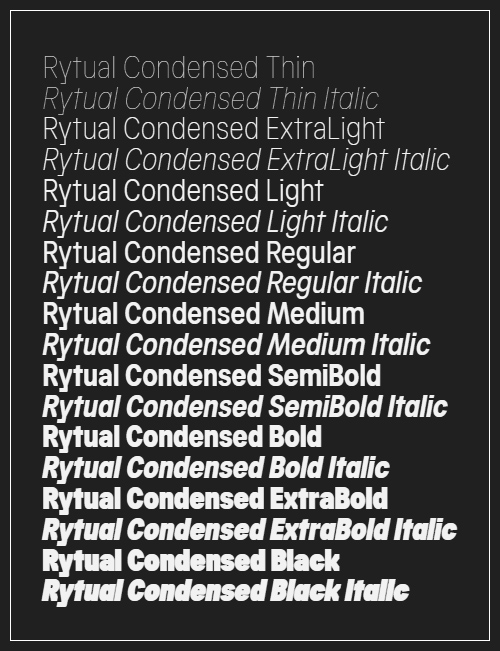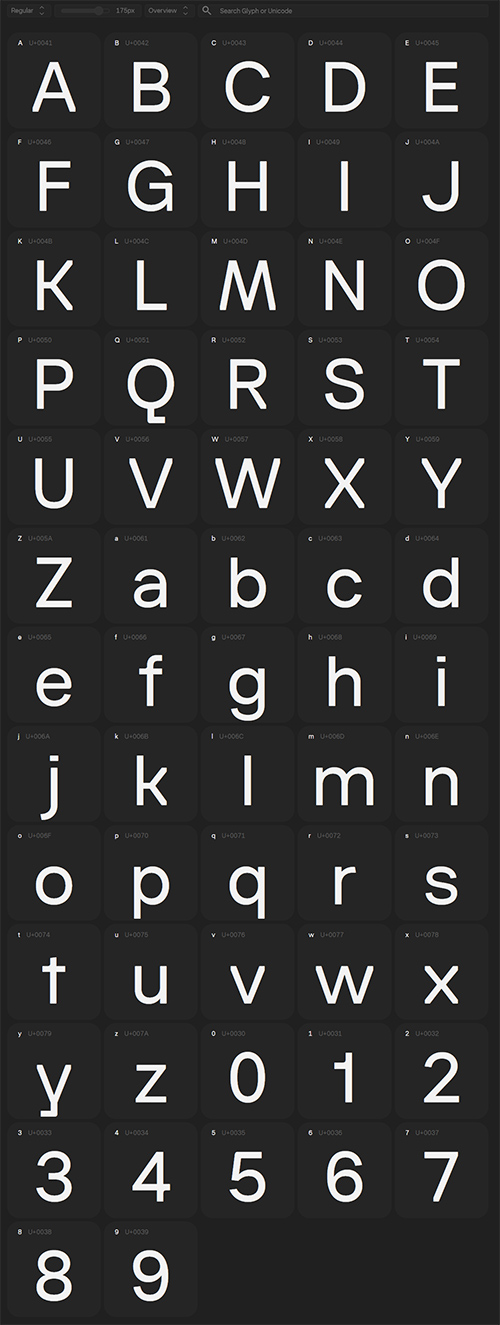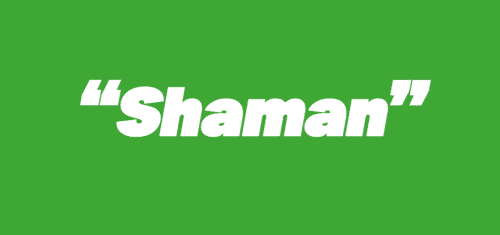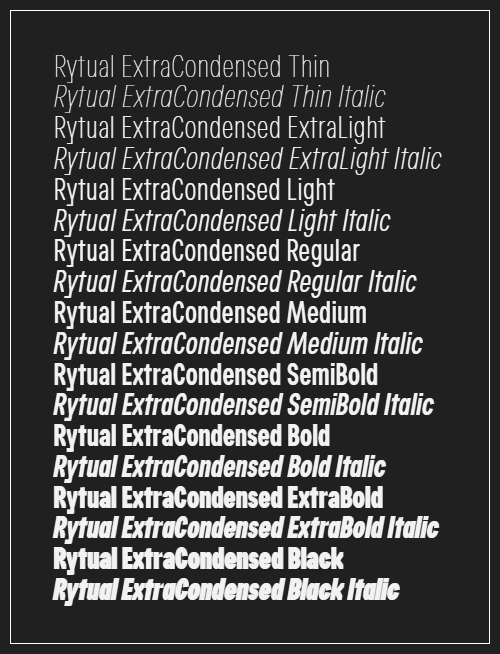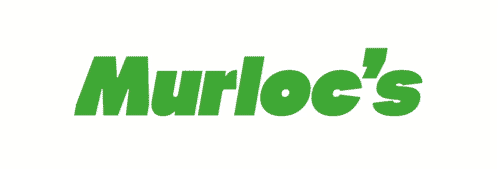
Rytual by Superior Type NEW, April 2026!
- The name came from a running. Same time, same route, whatever the weather, coffee after. A Rytual. The typeface follows the same logic: no single dramatic move, just one decision repeated consistently until the character accumulates. What started as a custom job for a friend grew into a full family, shaped by the rhythm that ran alongside it.
- Rytual is a grotesque built on clean, modern forms with a slightly narrow stance. Pointed terminals are cut away and replaced with sharp, rectangular endings, giving the letters a more constructed, precise quality throughout. The same logic carries into letters with fully or partially rectangular constructions, keeping the feeling consistent across the set. Narrow by nature, not by force. Stylistic alternates and three widths (Normal, Condensed, and ExtraCondensed) round out the system.